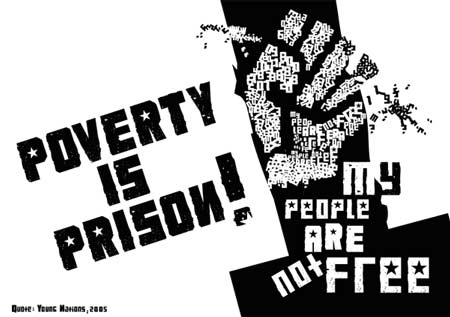
Preview and download VKB KonQa Font. Created by VKB KonQa in Foreign look Russian styles with Free for personal use license.
Categories | Foreign look, Russian |
This Typeface/Font is free for personal use, for commercial usage please purchase on www.konqa.com/fonts or email me on konqa[at]konqa.com for more details. Thank you for downloading this expressive display typeface influenced by communism, war and grunge in Africa. This font was made by Victor Bagu. Please email us the artwork you use the font in. |